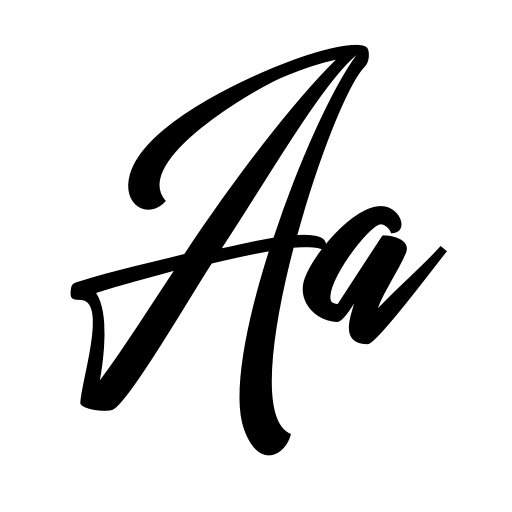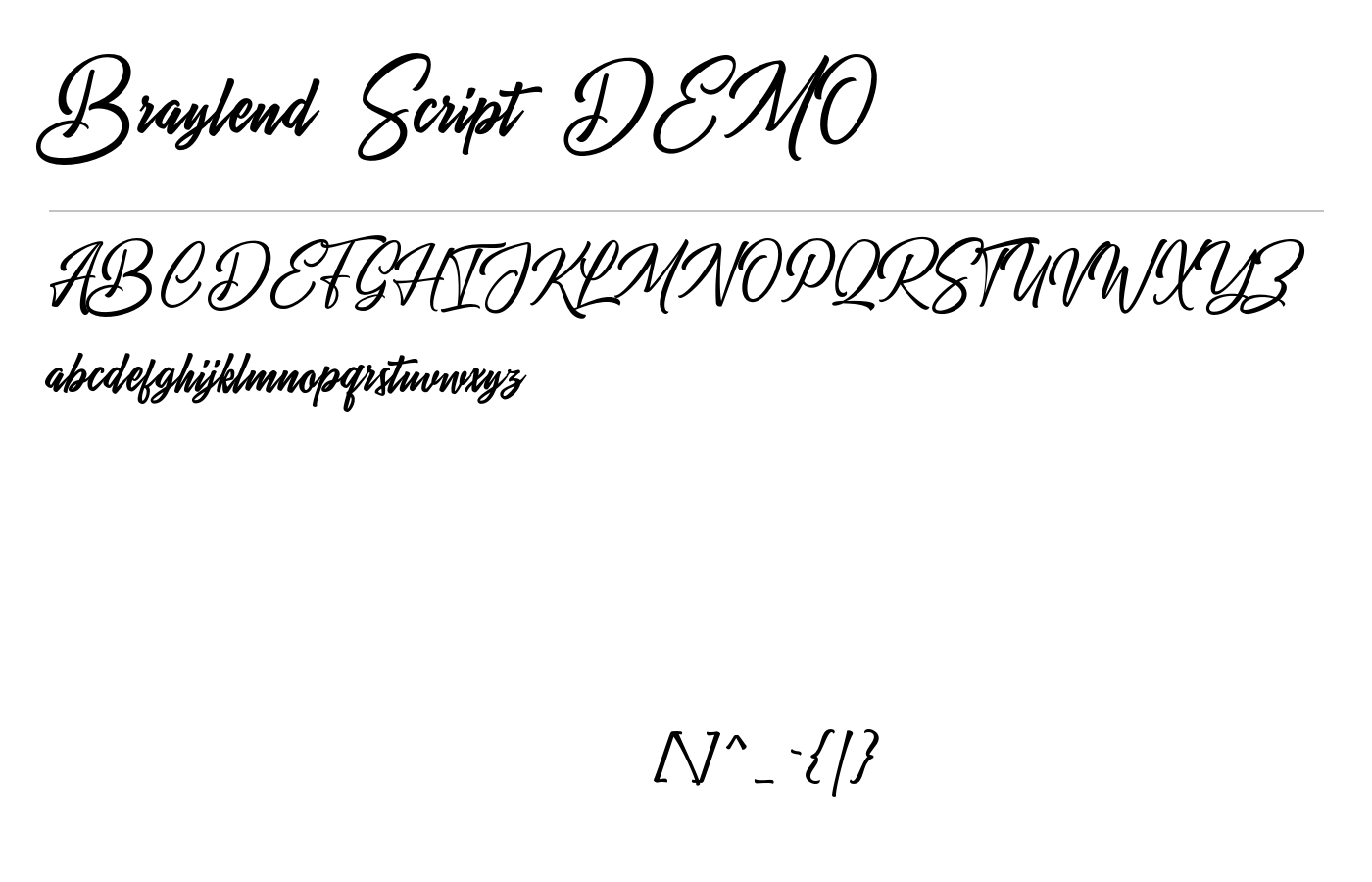
Braylend Script DEMO is a stylish, modern script font with a lively, handwritten feel. It features fluid, connected strokes with moderate contrast and a smooth, elegant rhythm, making it perfect for inviting and sophisticated designs like logos, invitations, and branding that seek a personal yet polished touch. This font shines in creative projects where a blend of warmth and elegance is desired.
Braylend Script DEMO Font
About Braylend Script DEMO Font
| Font family | Braylend Script DEMO Font |
| Designer | Tebaltipisstd_Ferdiansyah_TTS |